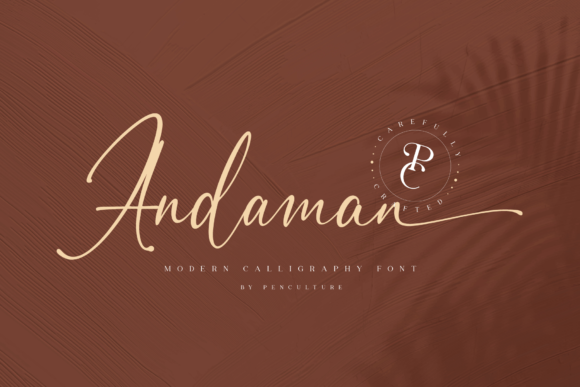
Behold the Andaman Font, a masterpiece calligraphy font destined to capture hearts and elevate your creative endeavors. Its exquisite swirls and elegant curves embody the grace of handwritten artistry, adding a touch of timeless sophistication to your designs.
With Andaman Font, you can craft captivating poster titles that command attention and leave a lasting impression. Its distinctive ligatures and unique swashes bring a symphony of visual intrigue, transforming ordinary words into breathtaking works of art.
Are you a branding visionary seeking to establish a distinctive identity for your business? Andaman Font holds the key to unlocking your unique style. Its inherent versatility seamlessly adapts to a myriad of branding projects, enabling you to forge a brand identity that resonates with your target audience.
Fashionistas, rejoice! Andaman Font is your secret weapon for creating captivating fashion projects that exude elegance and sophistication. Its delicate strokes and impeccable flow effortlessly complement the allure of fashion, adding a touch of enchantment to every design.
Aspiring magazine designers, unveil the power of Andaman Font to elevate your publications to new heights of visual appeal. Its timeless beauty effortlessly enhances the allure of magazine covers, layouts, and headlines, captivating readers from the very first glance.
But the Andaman Font's allure extends far beyond these specific applications. Its versatility shines in a multitude of creative projects, from invitations and greeting cards to social media graphics and website designs. With Andaman Font, your imagination knows no bounds.
Unleash your creativity and embrace the boundless possibilities of Andaman Font. Its effortless charm and timeless appeal await your touch, ready to transform your creative visions into tangible masterpieces.